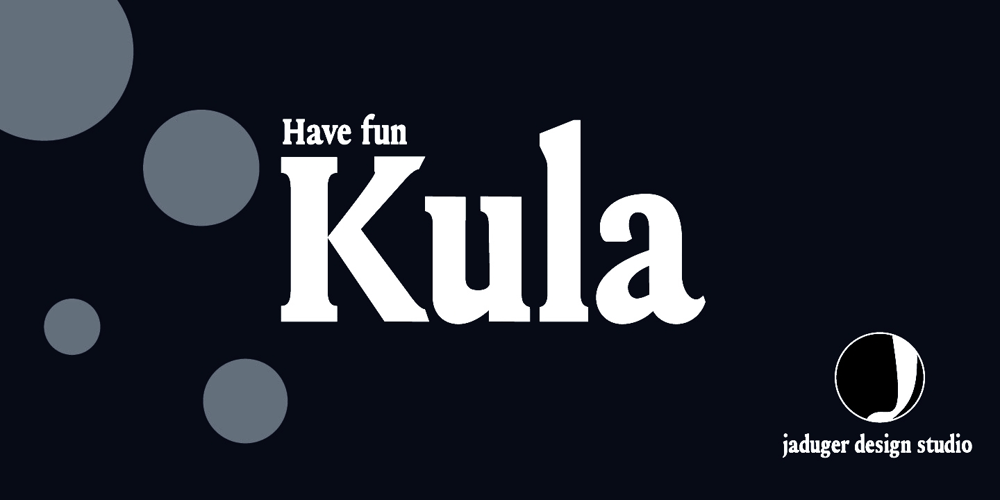
Kula Font Family was designed by mobaric minhas and published by Jadugar Design Studio. Kula contains 4 styles and family package options. I am proud to introduce Kula, a fun font. It is bold with three variations: outline, shadow and blur. These 4 fonts are very pleasing to use in your poster design, giving some headings to your text and many more options to play with these set of fonts.Its unique curves with slab look is fantastic choice for your next project. Kula has been crafted with care and I tried to make this some thing special for you.I hope you will enjoy this font family!